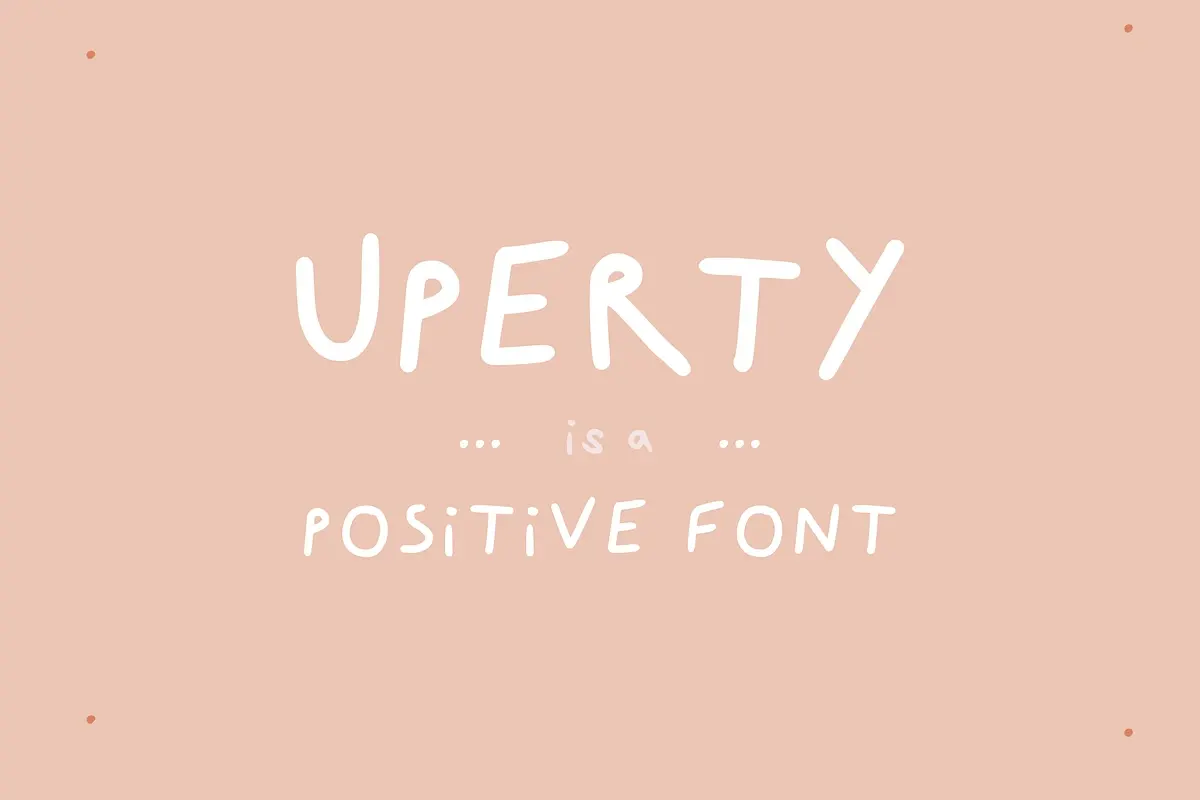
Uperty Font Free Download is a simple boho handwritten typeface that brings an effortless, free-spirited vibe to your designs. With its casual strokes and organic charm, Uperty is perfect for boho branding, Instagram quotes, wedding invitations, product packaging, and lifestyle blog graphics.
This font captures the essence of hand-drawn lettering with a clean, minimal look that feels both personal and stylish. Uperty includes uppercase and lowercase letters, numbers, punctuation, and sweet little quirks that make each character feel one-of-a-kind.
Whether you're designing for a cozy handmade brand or creating heartfelt content, Uperty Font Free Download adds an authentic, natural touch. You can test it in personal or demo projects, and don’t forget to purchase the appropriate license for any commercial use. Keep it simple, soft, and soulful with this lovely boho handwritten font.